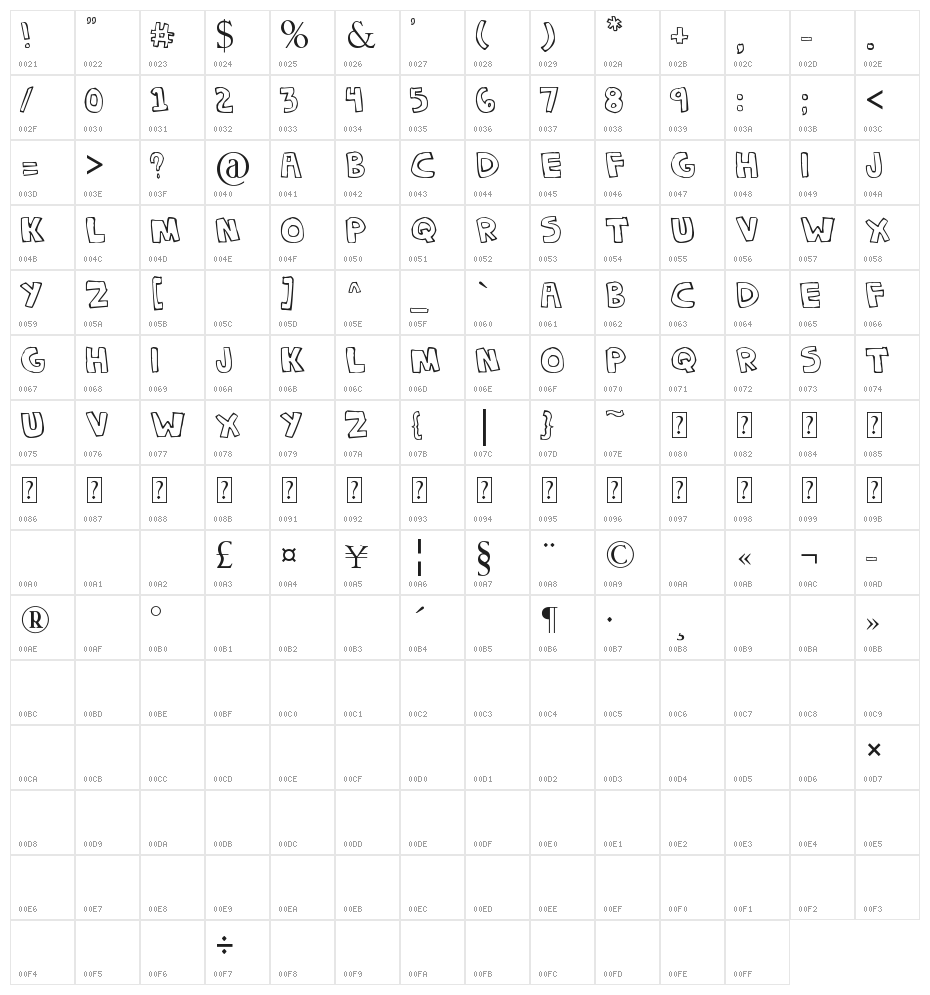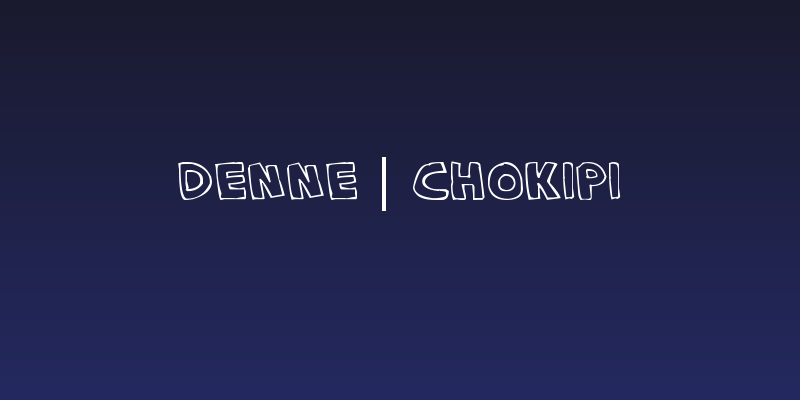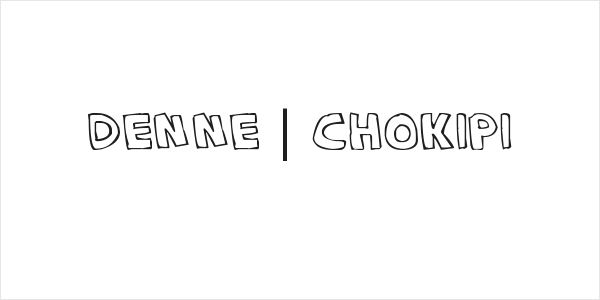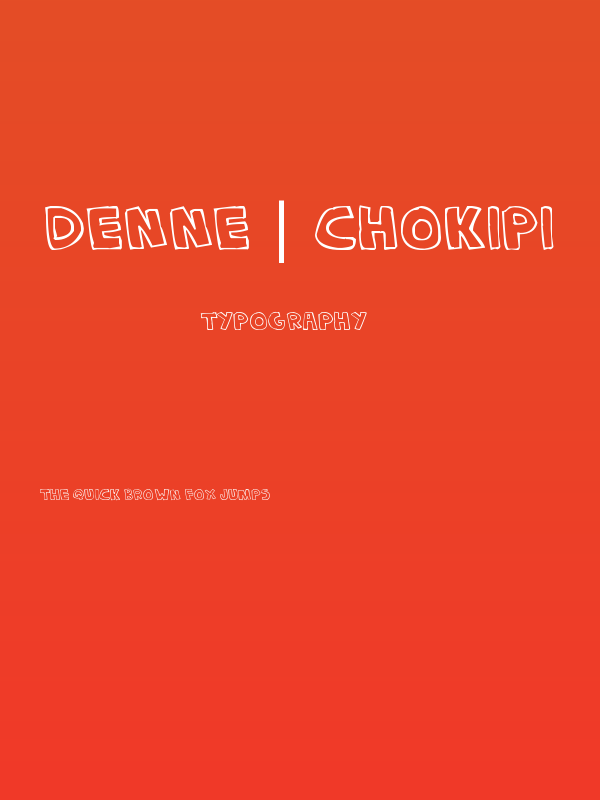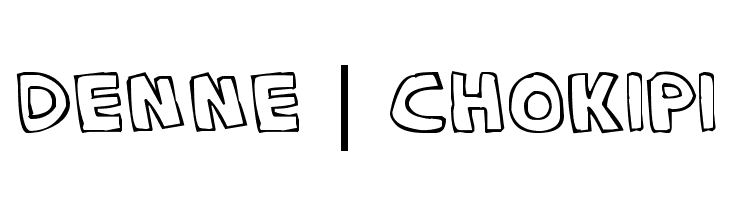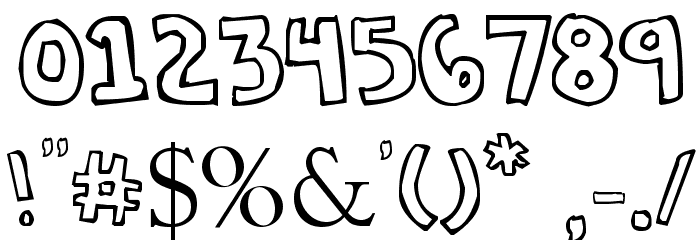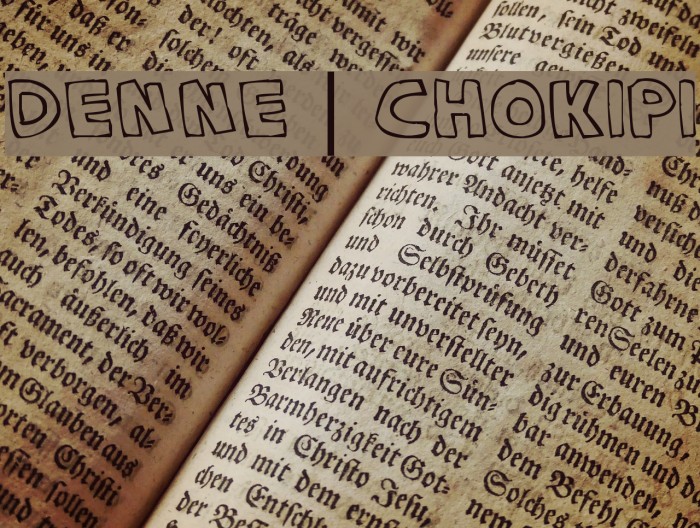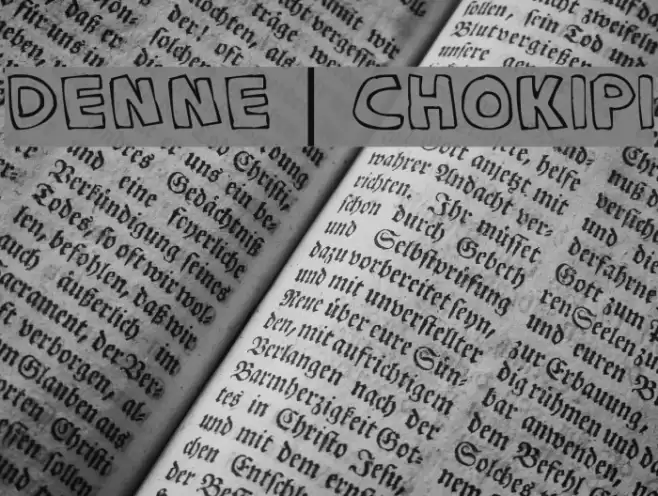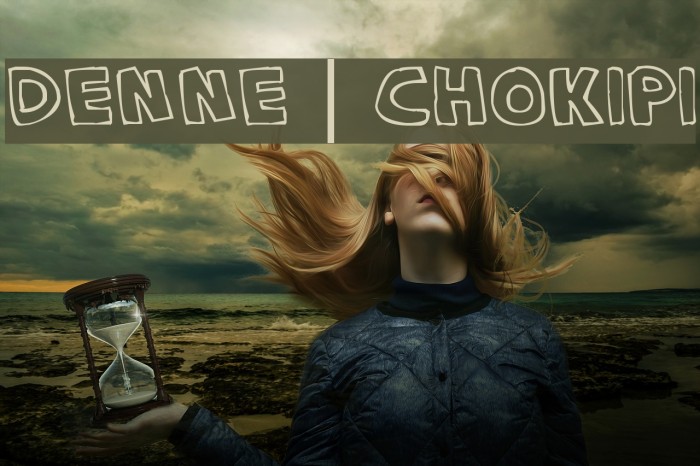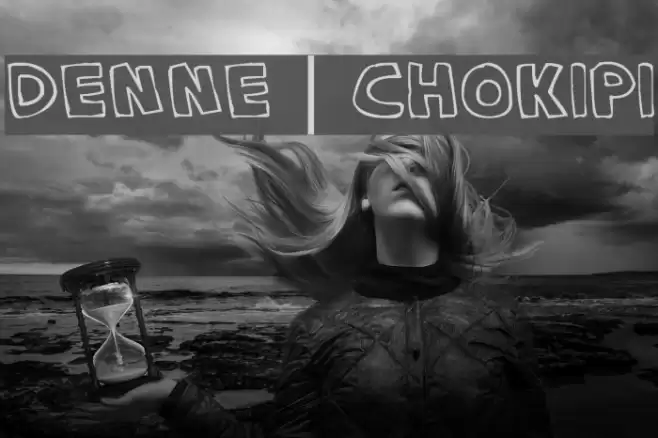
Denne | CHOKIPI Font
Denne | CHOKIPI Description
This playful and bold font features a hand-drawn, cartoonish style with thick outlines that give it a lively and dynamic appearance. The letters are slightly irregular, adding to the whimsical and informal feel. The uppercase and lowercase characters maintain a consistent style, with rounded edges and a sense of movement. The numbers and special characters are equally expressive, making this font ideal for projects that require a fun and engaging look. Its unique style is perfect for children's books, comic strips, or any creative project that seeks to capture attention with a lighthearted tone.
| Overall Style | Playful, Cartoonish, Whimsical |
| Proposed Projects | Ideal for children's books, comic strips, playful branding, and creative posters. |